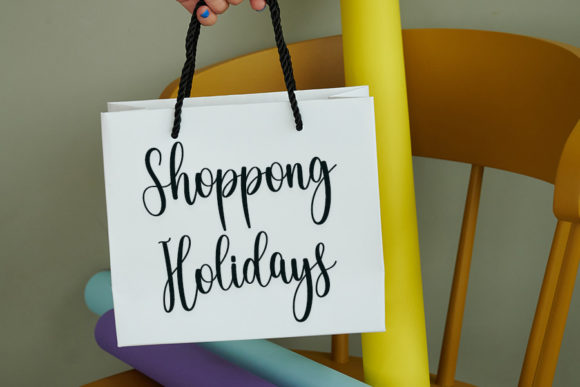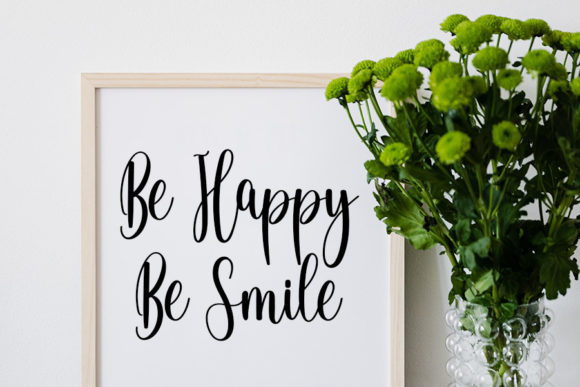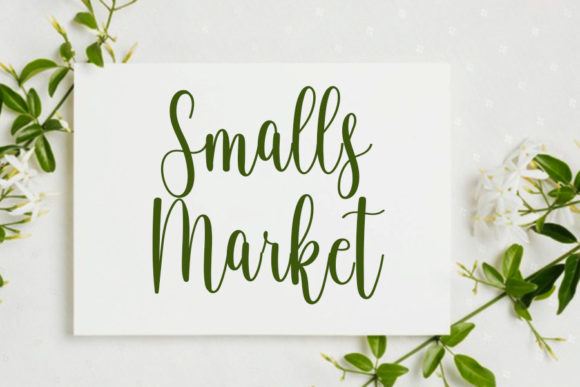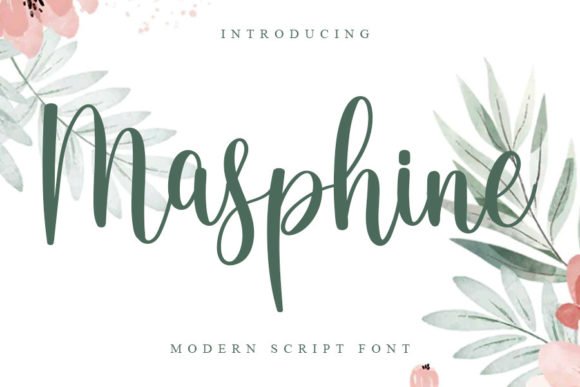
Introduction to Masphine Font
Masphine is a stylish handwritten font with a contemporary atmosphere and impeccable form, inspired by a timeless classic calligraphy.
Not too thin and not too thick, balanced and varied, this font was designed to enhance the beauty of your projects .
Key Features of Masphine Font
Why Choose Masphine Font?
Masphine Font offers exceptional quality and versatility, making it a valuable addition to your design toolkit. Whether you’re creating for personal projects or commercial use, Masphine Font delivers professional results.